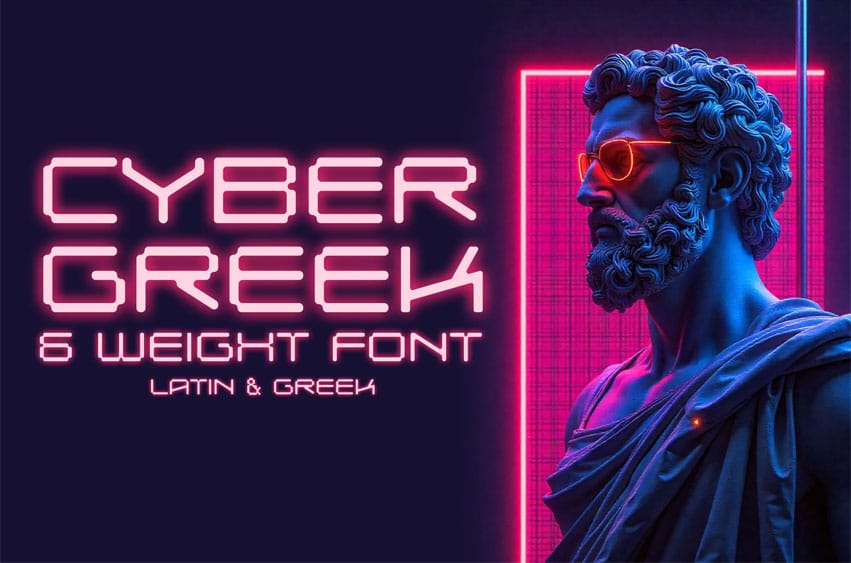
Cyber Greek Font Cyberpunk style Latin & Greek Font. It is suitable for flyers, posters, novels, letterheads, or any design requirements you want to be awesome.
It will certainly amaze your readers.